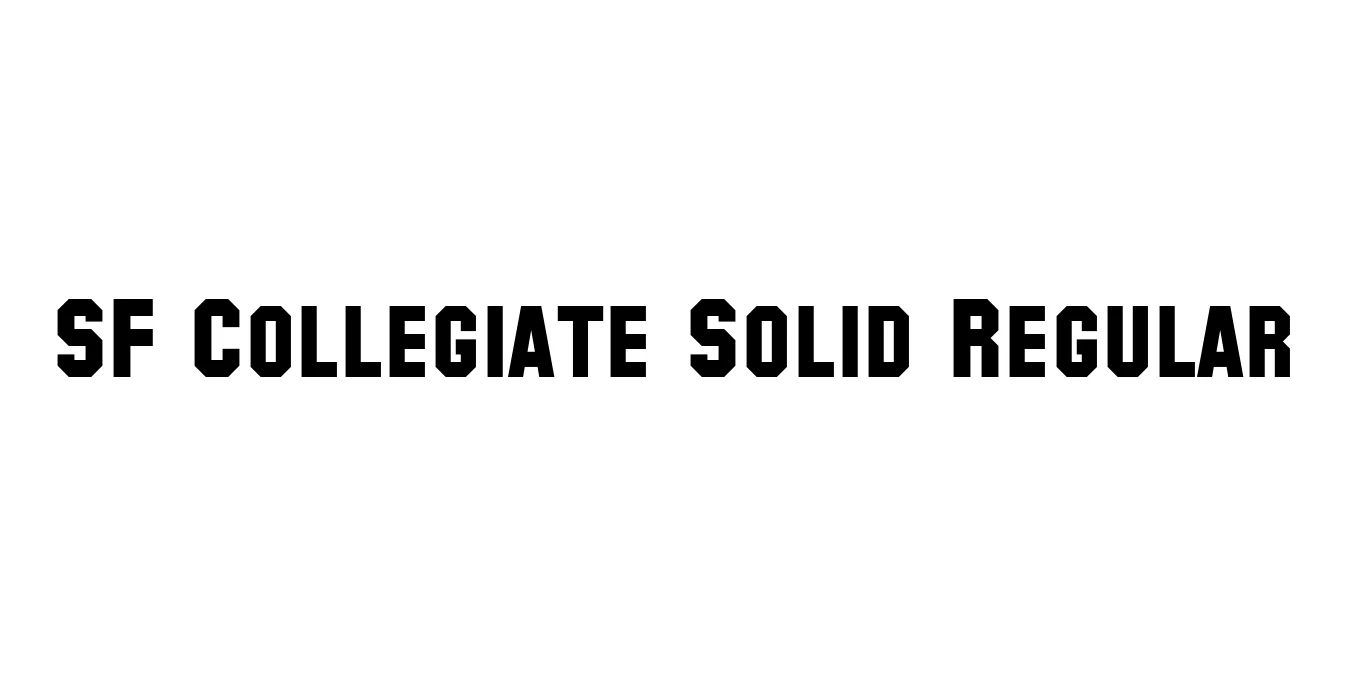
SF Collegiate Solid Regular
Designed by ShyFoundry
| Category | Slab Serif / Sports |
SF Collegiate Solid Regular is a powerhouse typeface designed by ShyFoundry to emulate the timeless aesthetic of American university and athletic branding. Characterized by its heavy, blocky letterforms and sturdy slab serifs, this solid variant offers a clean and uncompromising presence. Unlike its shadowed or outlined counterparts, the Solid Regular version provides maximum legibility and impact, making it a foundational element for any sports-themed design project.
Historically, this typeface has been utilized to convey a sense of tradition, strength, and team spirit. Its geometry is rooted in the classic varsity lettering seen on stadium walls and campus apparel for decades. Because of its wide stance and bold strokes, it excels in environments where visibility is paramount, serving as a versatile tool for designers aiming to capture a nostalgic yet authoritative collegiate identity.
SF Collegiate Solid Regular Best Uses
Ideal for team logos, jerseys, and fan merchandise.
Perfect for bold, attention-grabbing titles in posters and flyers.
Works well on t-shirts and hoodies to provide a vintage school look.
Excellent for large-scale banners and stadium displays.